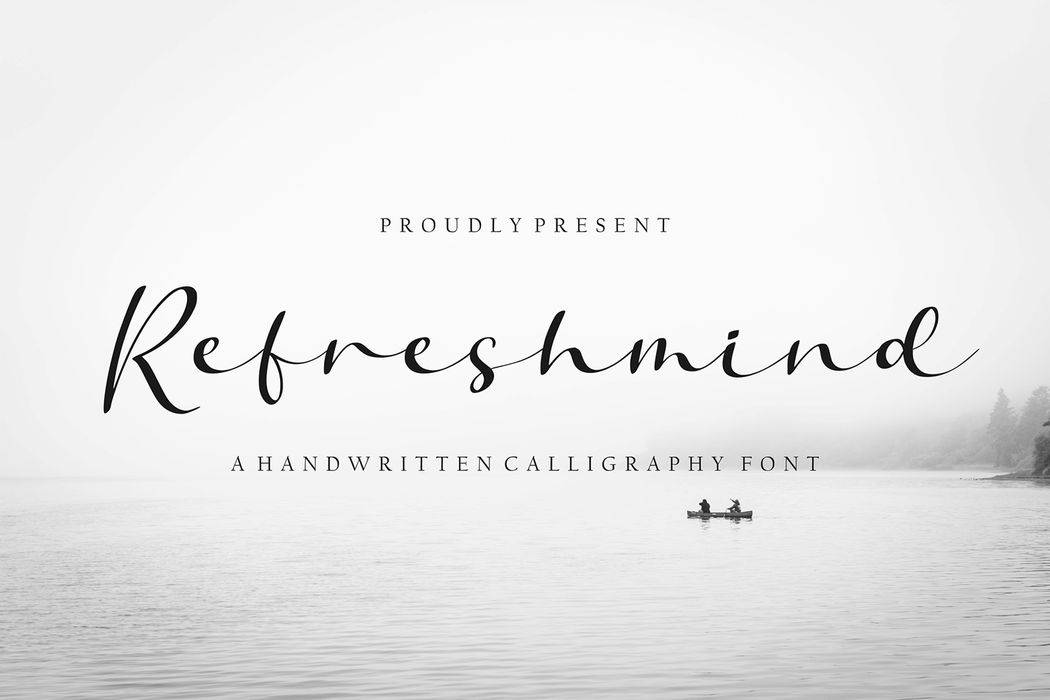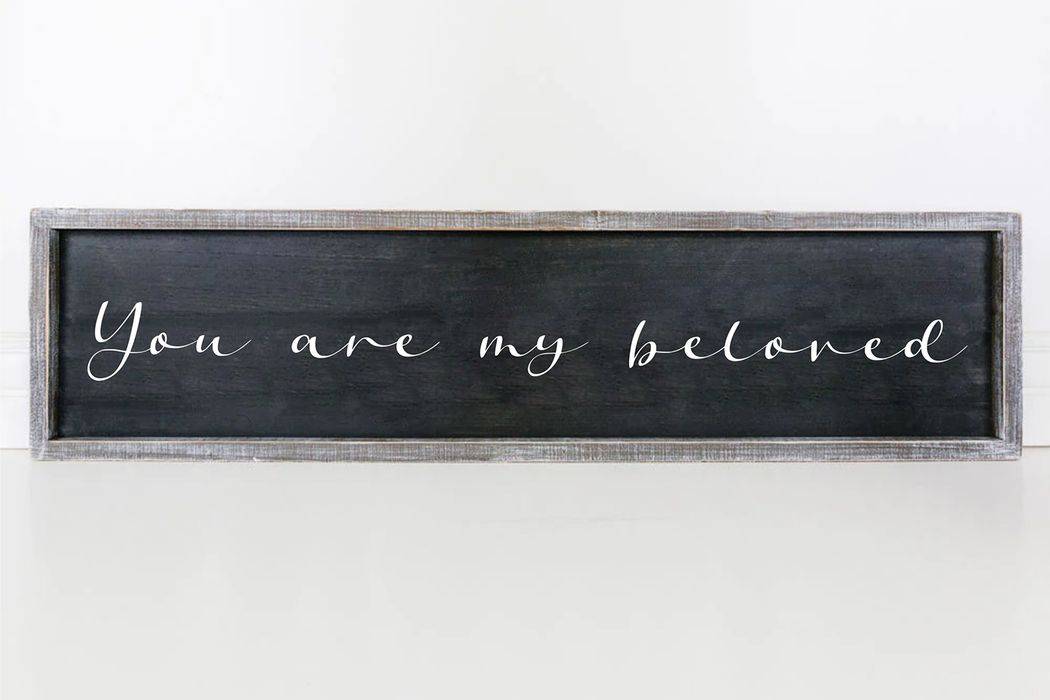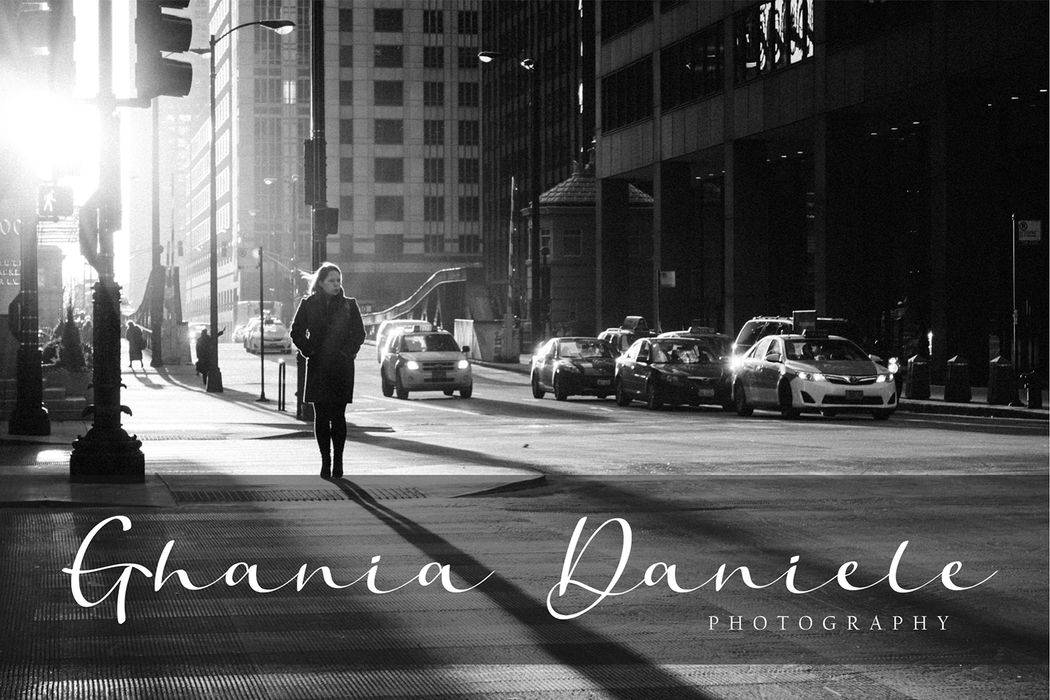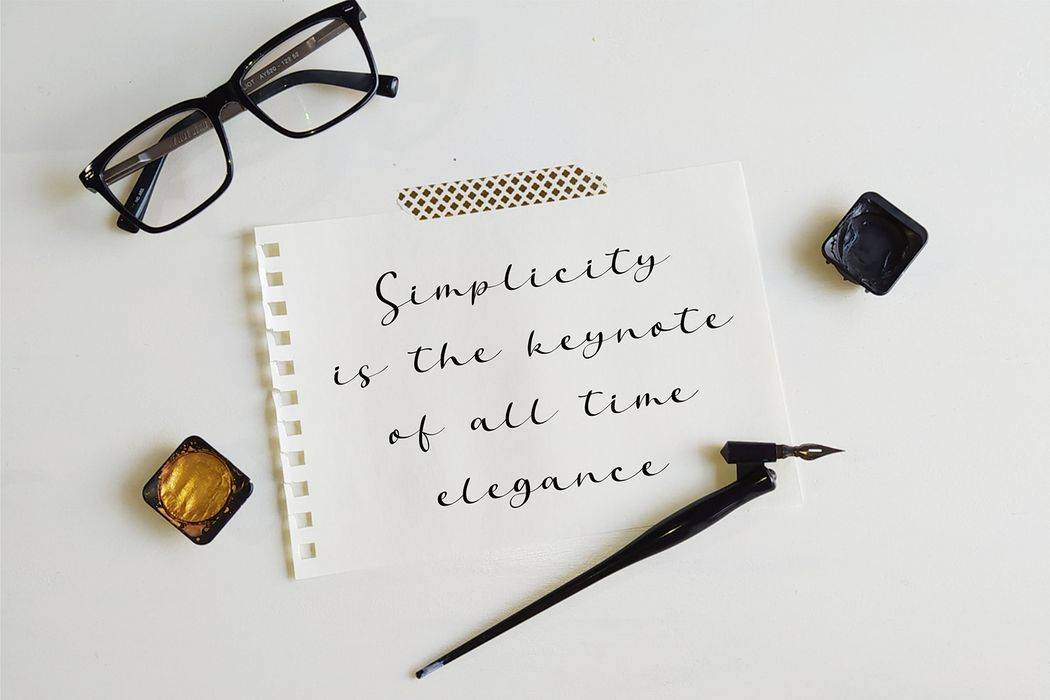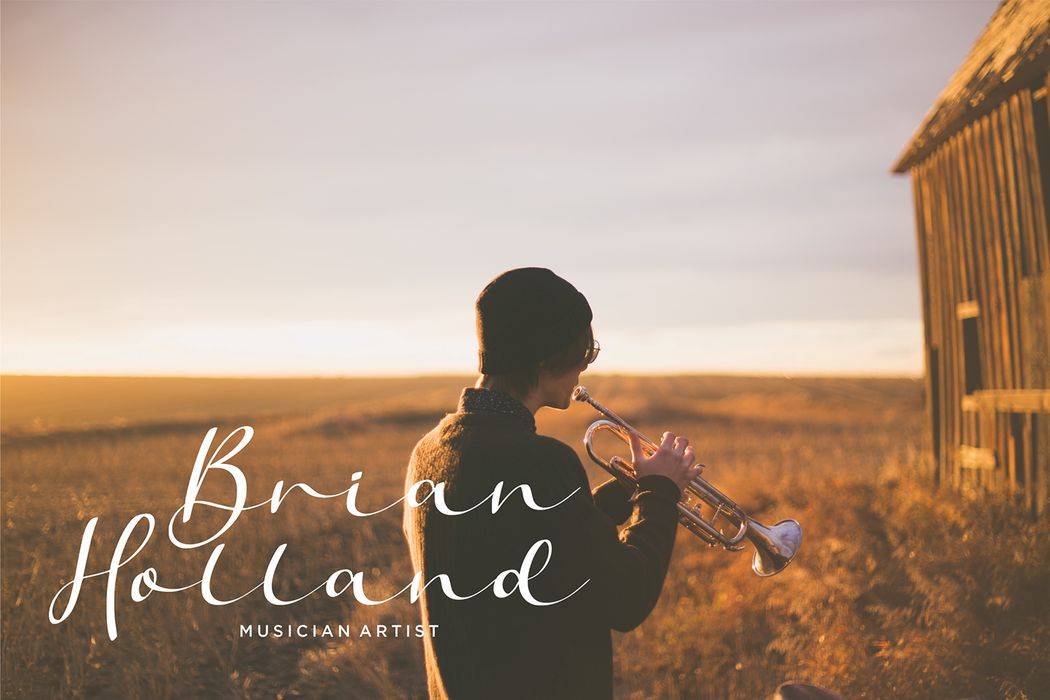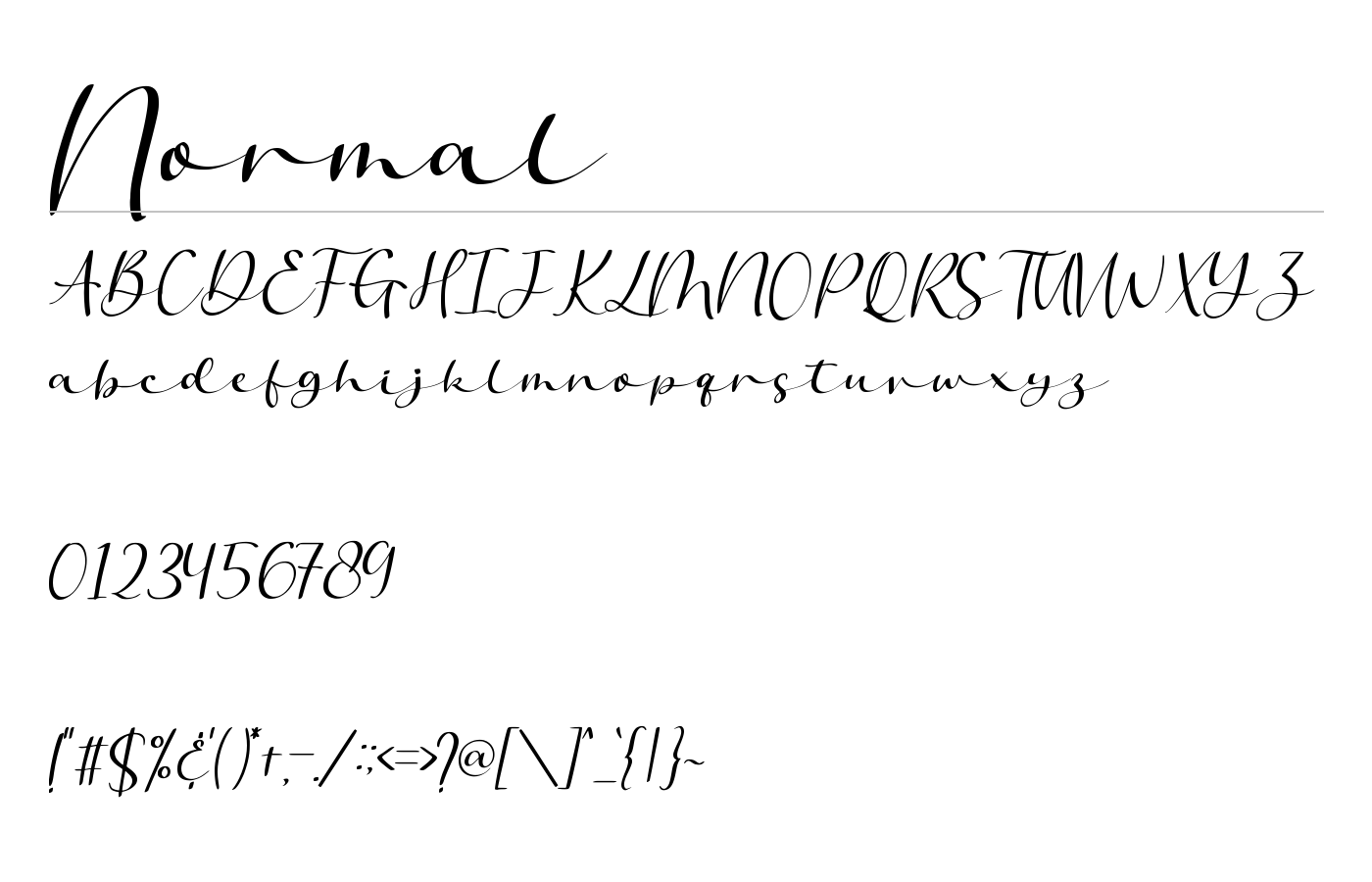
Refreshmind is an elegant, handwritten script font with smooth, flowing strokes and a delicate, modern feel. Its thin weight and graceful letterforms make it ideal for adding a personal, stylish touch to wedding invitations, branding, and feminine design projects. This font works beautifully in headlines or short text where a refined, artistic look is desired.
Refreshmind Font
About Refreshmind Font
| Font family | Refreshmind Font |